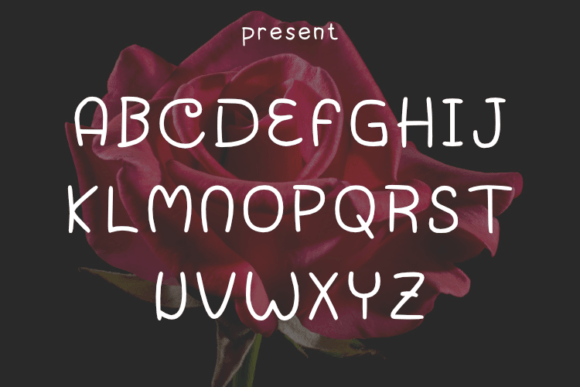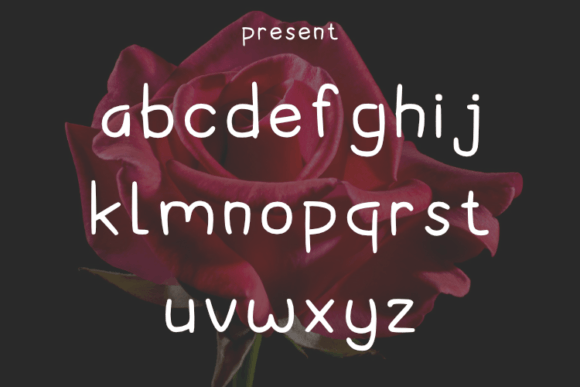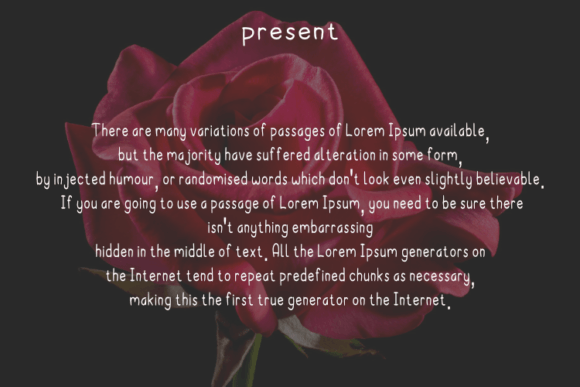
Introduction to Siffa Font Font
Fonts play a crucial role in design, and the Siffa Font font is a typeface that brings both character and versatility to any project. Whether you’re working on a branding project, a website, or a print design, the Siffa Font font offers a unique style that can elevate your work.
| 📌 Font Name | Siffa Font |
| 👤 Author | Eric Kusuma |
Siffa is a unique and modern handwritten font perfect for elegant and luxurious logos, book or movie title designs, fashion brands, magazines, clothing, fonts, quotes, and many more.
Key Features of Siffa Font Font
Why Choose Siffa Font Font?
The Siffa Font font is more than just a typeface – it’s a design tool that helps you communicate your message with style and clarity. Its unique character set and versatile design make it suitable for a wide range of applications, from elegant invitations to bold headlines.
With its carefully crafted letterforms and balanced proportions, the Siffa Font font ensures readability and visual appeal across all mediums.
What makes Siffa Font font special?
The Siffa Font font stands out with its unique design, exceptional readability, and versatility across various design applications.